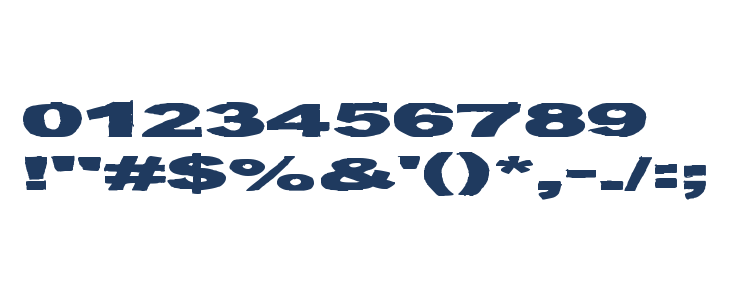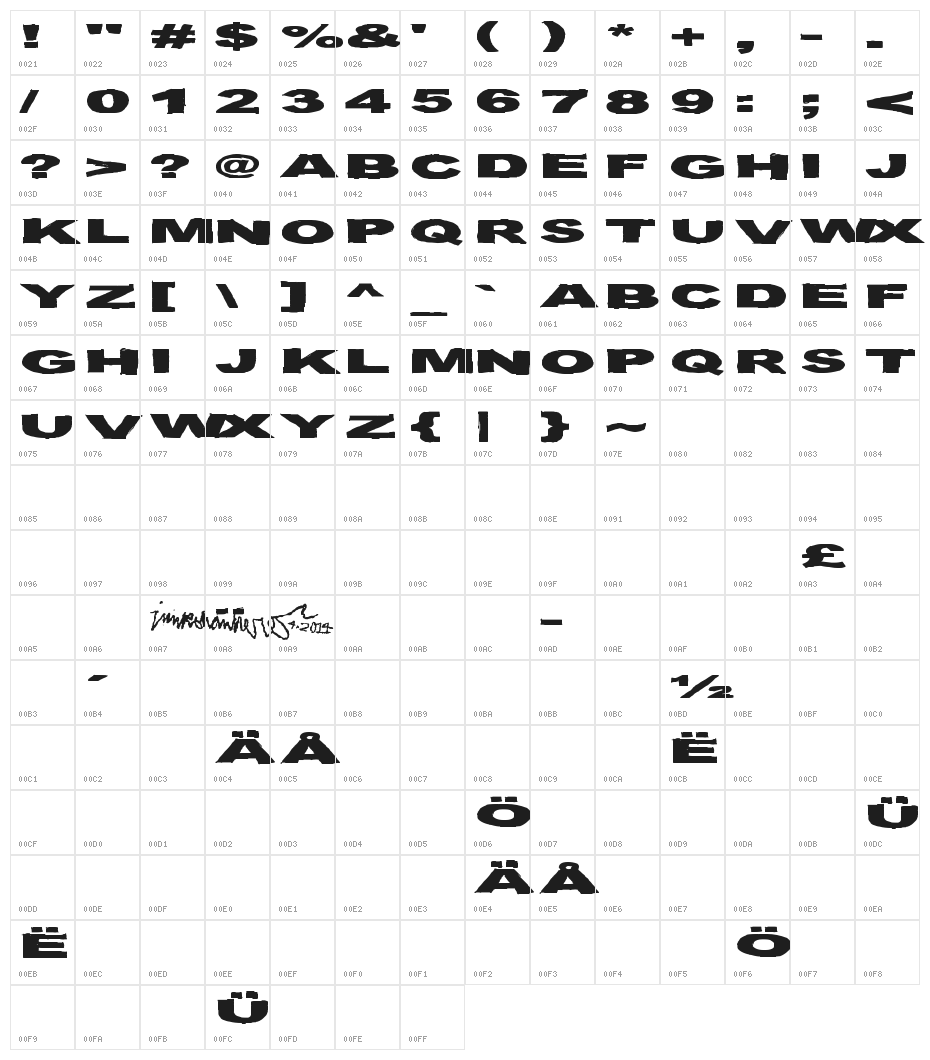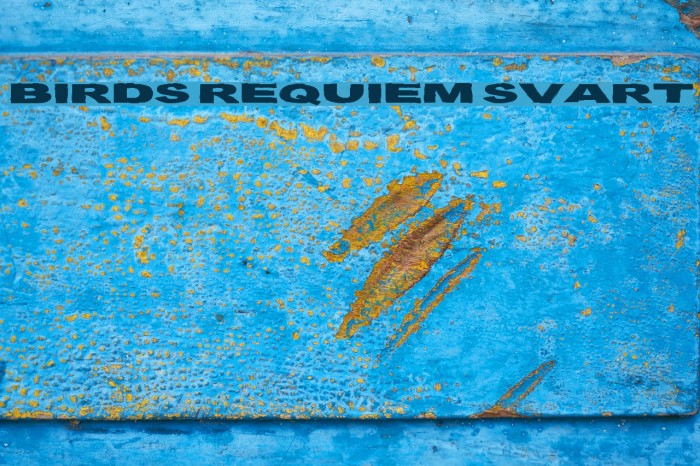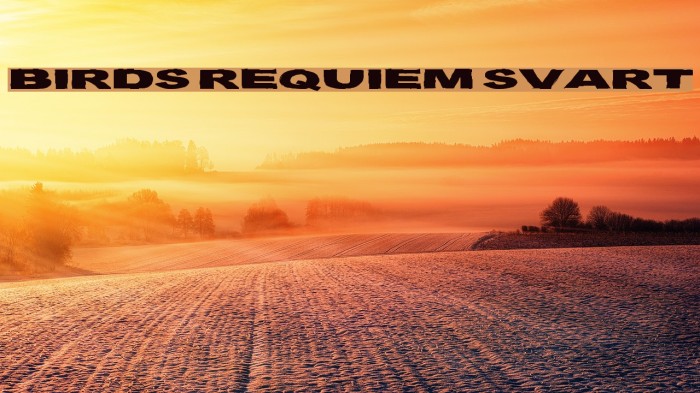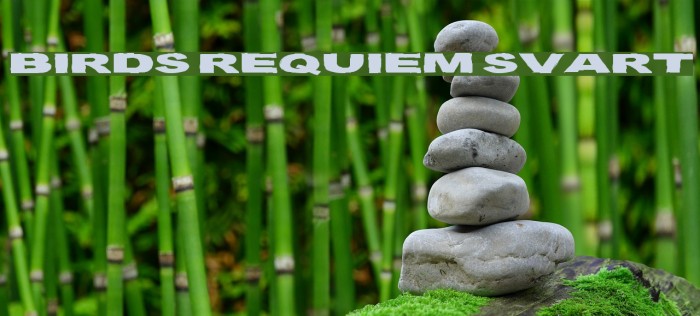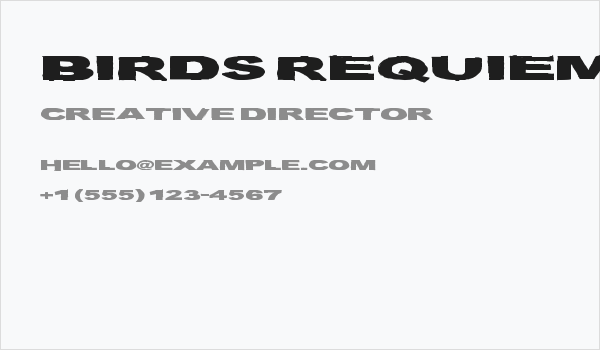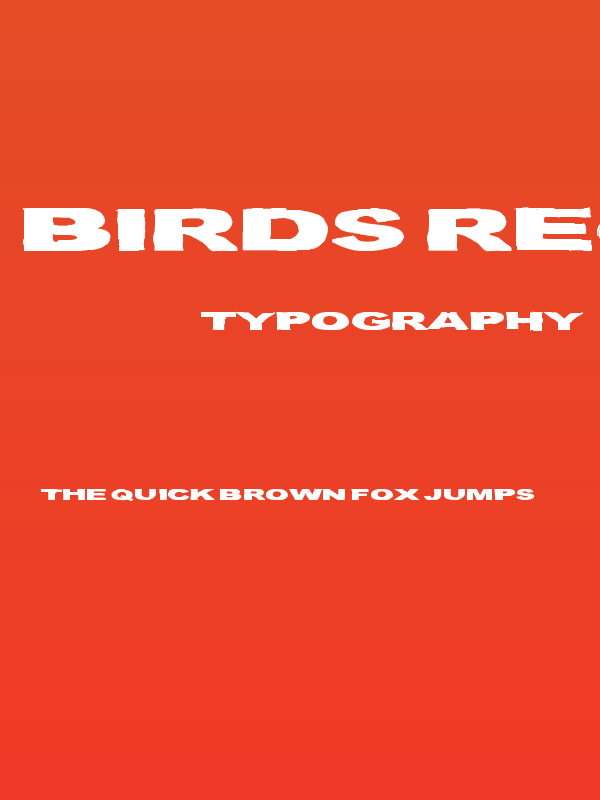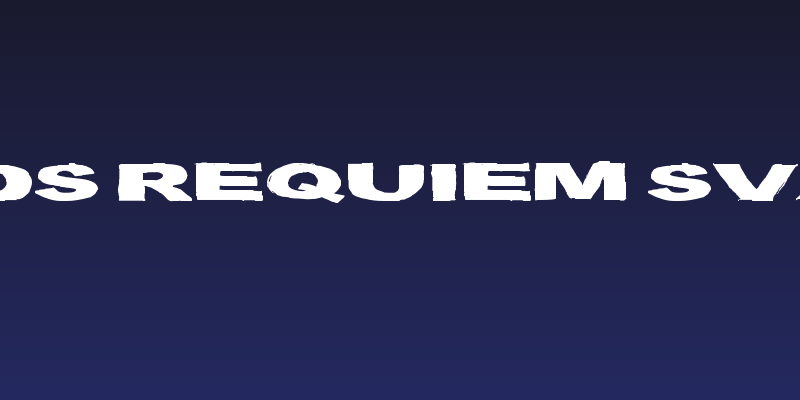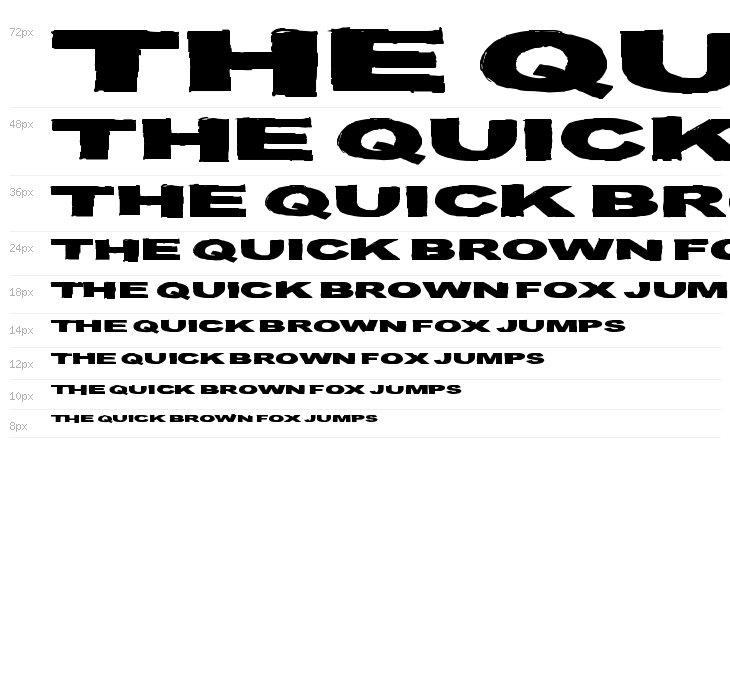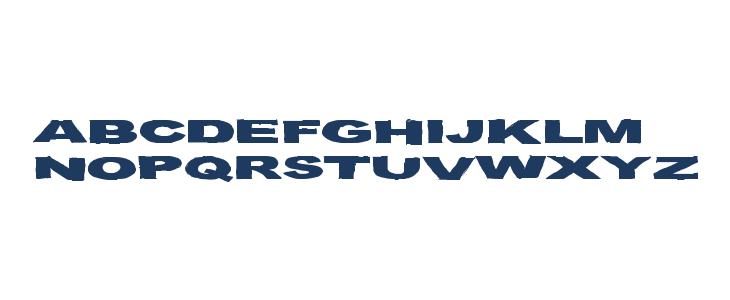
Birds Requiem Svart Font
Birds Requiem Svart Description
This font features a bold and impactful design with a distressed, grunge-like texture that gives it a rugged and edgy appearance. The characters are wide and heavy, with irregular edges that create a sense of movement and dynamism. The uppercase and lowercase letters maintain a consistent style, while the numerals and special characters complement the overall aesthetic. This font's unique style makes it stand out, offering a strong visual presence that is both modern and artistic.
| Overall Style | Modern, Artistic |
| Proposed Projects | Ideal for music album covers, posters, branding for edgy or alternative products, and any project requiring a strong, artistic statement. |